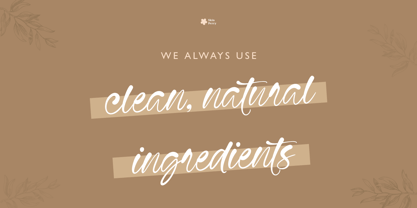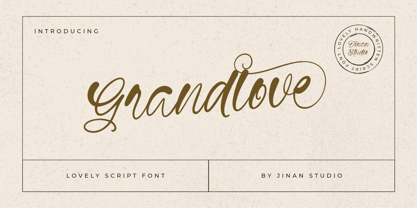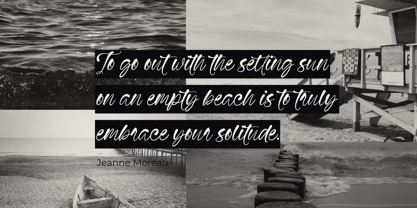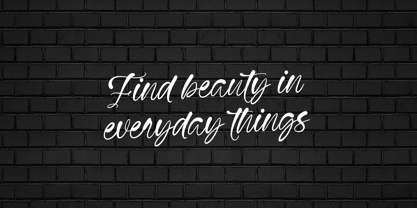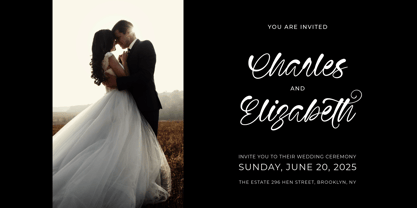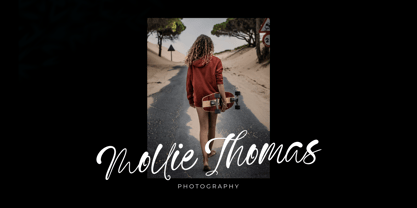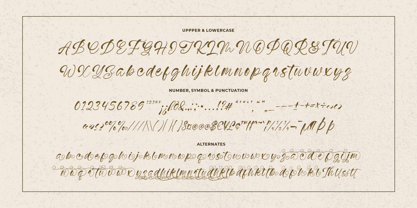
Grandlove
by Jinan Studio
The Grandlove Font Family was designed by Andi Syahdang, Ainun Jinan and published by Jinan Studio. Grandlove contains 1 styles. More about this family
Welcome to the breathtaking world of Grandlove, a handcrafted font that brilliantly blends sweetness with sophistication. Infused with elegant swirls and fluid lines, it reinvents the art of handwritten aesthetics, effortlessly elevating your projects with its charming allure. Grandlove seamlessly slides through a spectrum of applications, ornating everything from wedding invitations, heartfelt greeting cards to branding elements with its graceful strokes. The intrinsic charm of Grandlove’s natural, free-flowing design infuses each letter with a deeply personal feel, making it an exceptional choice when you wish to relay warmth, sincerity, and a dash of creative elegance. Reveal the power of a handwritten note, with Grandlove, where sophistication meets charm.
Features
• A set of uppercase and lowercase glyphs
• Number, symbol, and punctuation
• Multilingual Support
• Alternates and Ligatures
Designers: Andi Syahdang, Ainun Jinan
Foundry: Jinan Studio